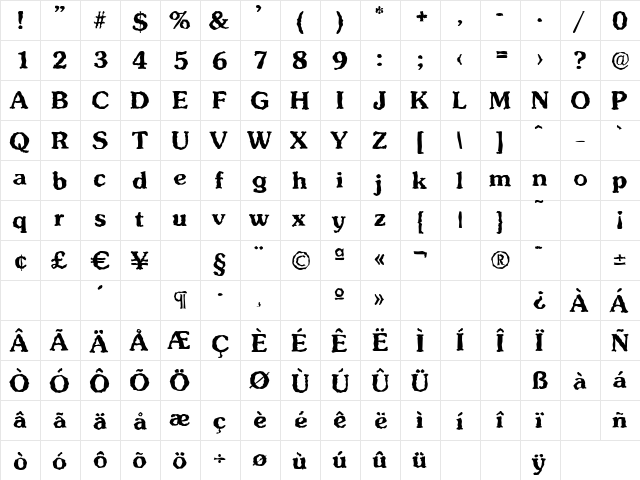
SunsetRandom Bold Font Preview
SunsetRandom Bold
Design Context for SunsetRandom Typeface
SunsetRandom is a composed and adaptable typeface that performs quietly and consistently across a wide range of design contexts. The heavy weight commands attention and anchors typographic hierarchies.